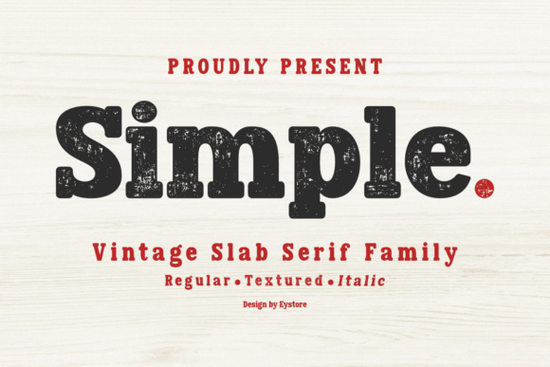
If you're looking for a slab serif font that feels both grounded and expressive something that works just as well on a hand-stamped coffee bag as it does in a digital logo mockup Simple Font is worth your attention. It’s not overly ornate, but it’s never plain. Designed with vintage sensibility and everyday usability in mind, this family gives you three distinct styles (Regular, Textured, and Italic) without asking you to sacrifice clarity or character.
What makes Simple Font different from other slab serifs?
Many slab serifs lean heavily into either retro kitsch or sterile modernism. Simple Font sits comfortably in the middle. Its sturdy letterforms have gentle distressing not so much that it looks worn out, but enough to suggest authenticity. Think of it like well-used workshop tools: functional first, with charm that comes from honest use.
The Simple Font family includes subtle variations that serve real design needs. The Regular style holds up beautifully at small sizes great for product tags or apparel care labels. The Textured version adds quiet visual interest without compromising legibility, making it ideal for posters or social media banners where you want warmth but still need readability. And the Italic isn’t just a slanted copy; it’s thoughtfully redrawn with rhythm and flow, useful for pull quotes or layered typography in branding systems.
Where do designers and makers actually use it?
We’ve seen Simple Font used across a wide range of practical projects especially by small businesses and crafters who need fonts that translate well across mediums:
- Branding for local shops coffee roasters, bakeries, and independent bookstores often choose it for its approachable authority.
- Apparel and merch it prints cleanly on screen-printed tees, embroidered patches, and vinyl decals.
- Packaging & labels its clean x-height and open counters help it stay legible even on curved surfaces or small jars.
- Digital signage and web headers the Regular and Italic styles render crisply on screens, especially when paired with a neutral sans-serif for body text.
It also pairs naturally with other slab serifs like the Wildhorn Slab Font if you’re building a broader type system with complementary weights and moods.
Is it suitable for print-on-demand sellers?
Yes and here’s why it stands out in that space: many popular display fonts lose impact when scaled down for mugs, stickers, or tote bags. Simple Font was built with physical output in mind. Its generous spacing, consistent stroke contrast, and restrained texture hold up even at 16pt on a water bottle label or 24pt on a heat-transfer vinyl decal. You won’t need to manually tweak kerning or add outlines for most common POD platforms.
That said, always test your files at actual size before uploading. A quick PDF preview at 100% zoom helps catch spacing quirks especially around punctuation or tight letter combinations like “fi” or “fl.”
How does it compare to other vintage-inspired fonts?
Unlike some distressed fonts that rely on heavy noise or exaggerated ink bleed, Simple Font uses subtlety. Its texture is baked into the outlines not added as a layer or effect so it stays crisp whether you’re exporting to PNG, SVG, or vector-based embroidery software. That makes it more reliable than fonts that depend on raster overlays or Photoshop layer effects.
For reference, if you’re exploring similar aesthetics, you might also consider Simple Font alongside other well-structured slab serifs like Wildhorn Slab Font. Both are designed for real-world application not just mood boards.
If you’ve been searching for a slab serif that doesn’t shout but still commands attention without needing extra effects or workarounds Simple Font is a thoughtful, low-friction choice that fits quietly into real creative workflows.